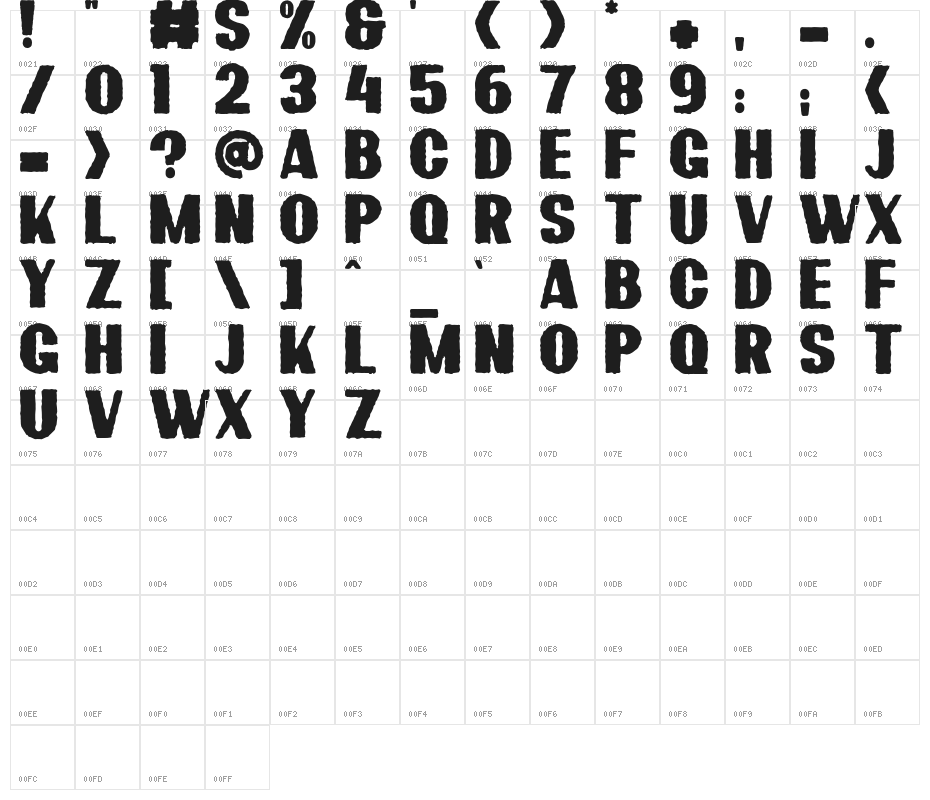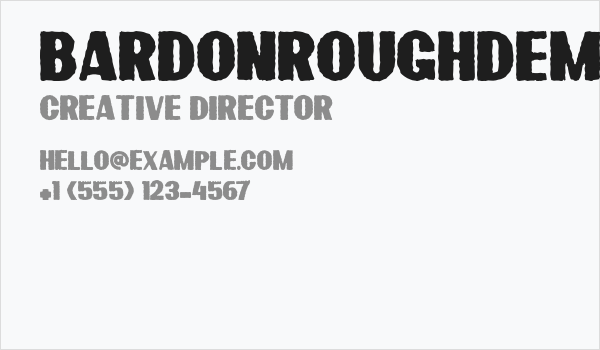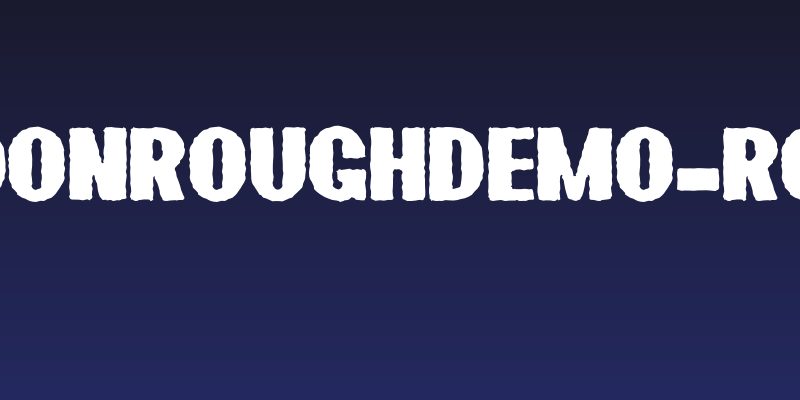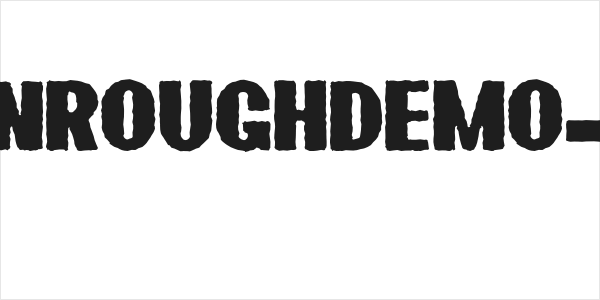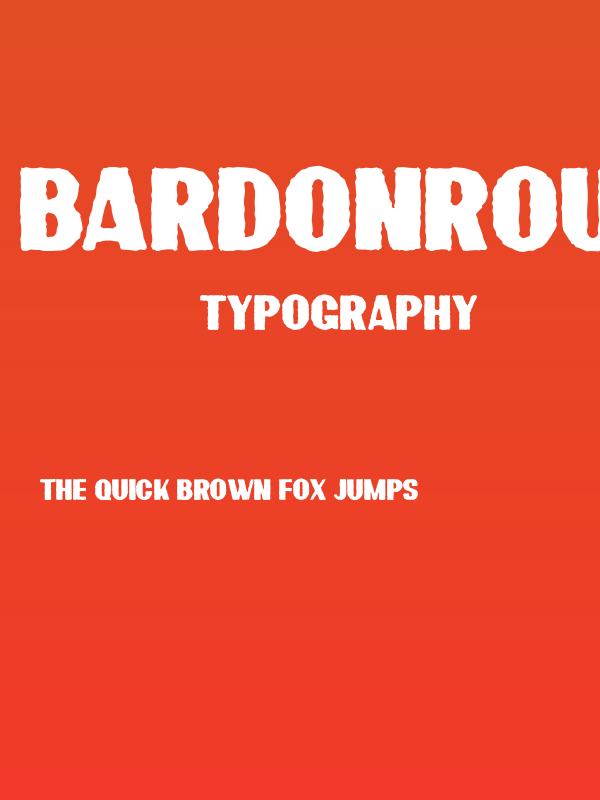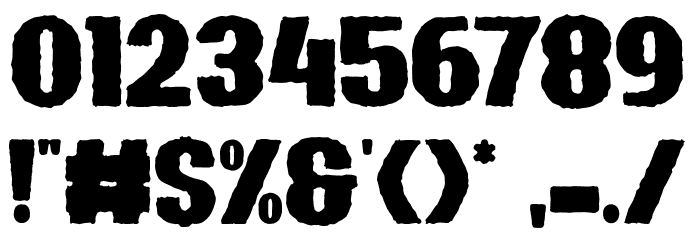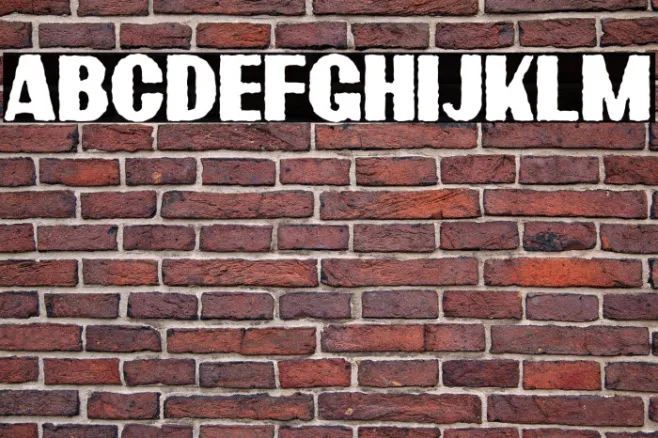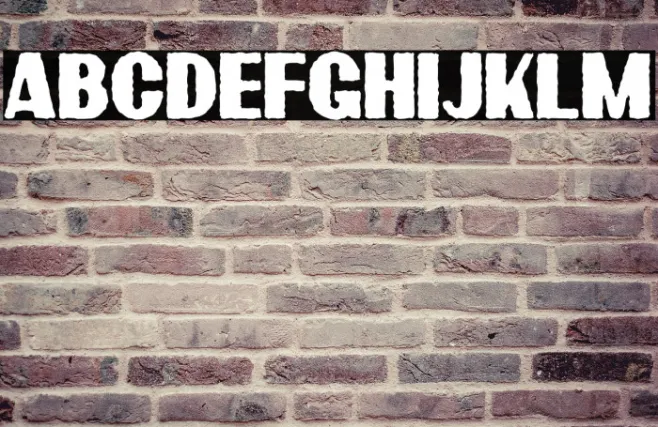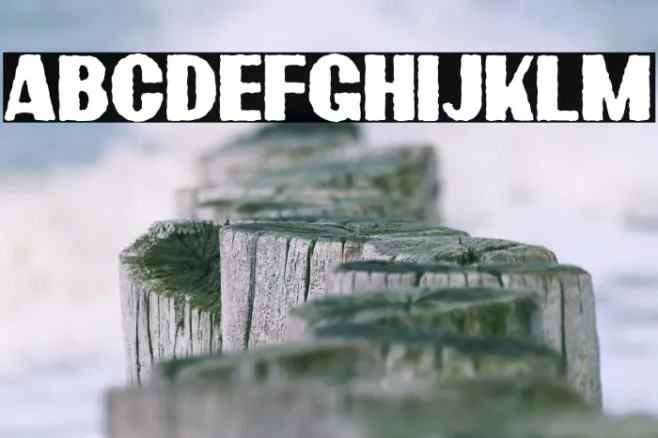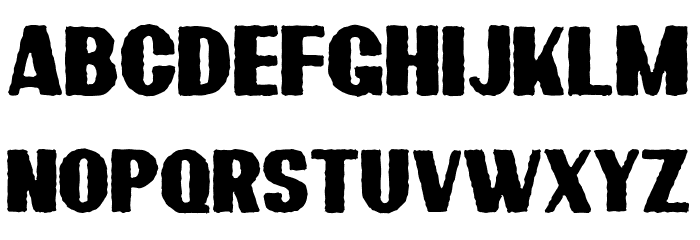
BardonRoughDemo-Rough Font
BardonRoughDemo-Rough Description
This font features a bold and rugged appearance, characterized by its rough, textured edges that give it a hand-crafted, vintage feel. The uppercase and lowercase letters maintain a consistent weight, providing a strong visual impact. The numbers and special characters follow the same design, ensuring uniformity across all glyphs. Its distinct style makes it ideal for projects that require a touch of rustic charm or a bold statement. The font's rough texture adds depth and personality, making it suitable for creative and artistic applications.